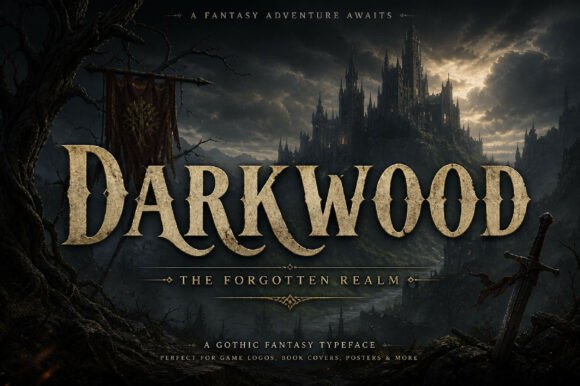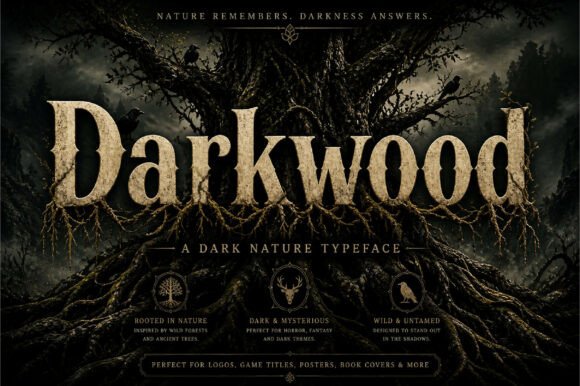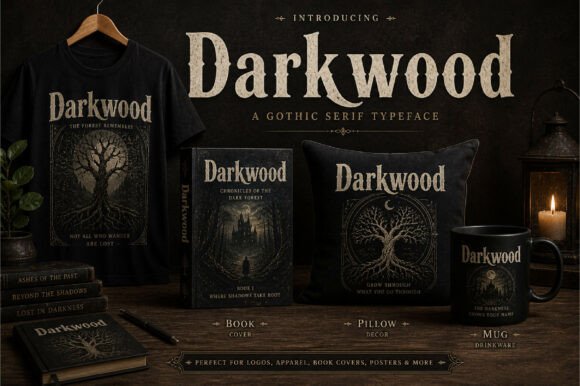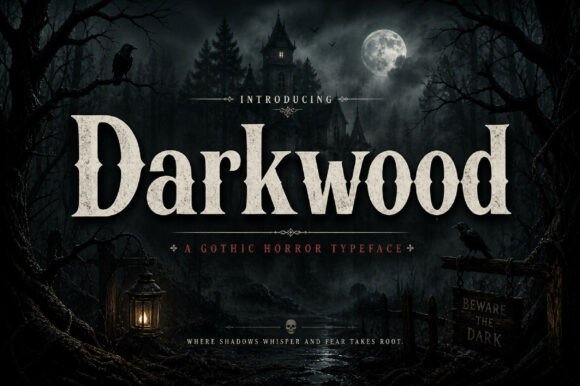
Introduction to Darkwood Font
Darkwood – Bold Vintage Display Font Short Description Darkwood is a bold vintage display font with strong serif shapes, dark character, and classic poster appeal.
Perfect for logos, branding, posters, packaging, labels, apparel, and headline designs Full Description Darkwood is a bold and stylish display font designed to create strong, memorable typography.